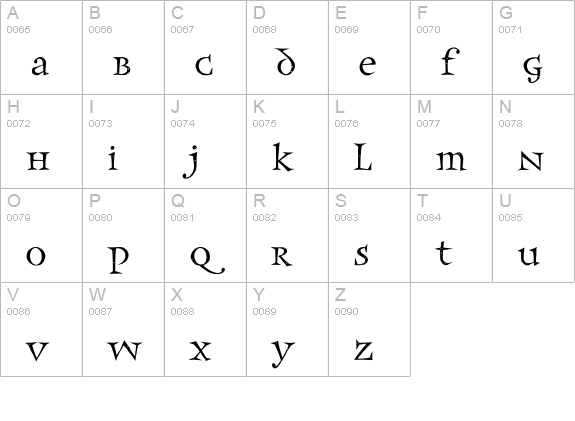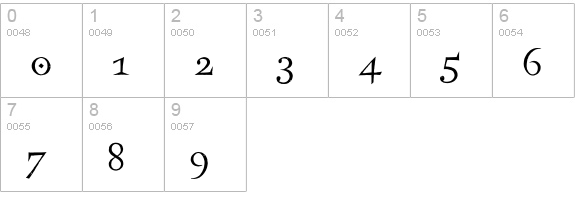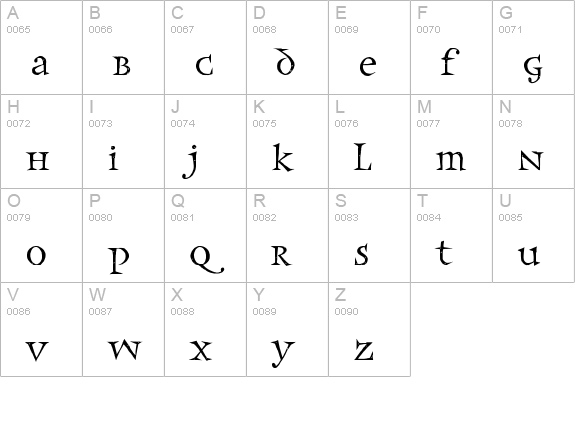
FrancesUncialPlain Font Details
FrancesUncialPlain font is a timeless and elegant typeface that exudes a sense of classical charm and sophistication. Its distinctive uncial style, characterized by rounded shapes and intricate details, makes it perfect for adding a touch of refinement to any design project. The fluid strokes and graceful curves of FrancesUncialPlain font create a harmonious and pleasing visual aesthetic that is sure to capture attention. What makes FrancesUncialPlain font even more appealing is that it is available for free download at FontsMarket.com. This means that you can easily access this exquisite typeface without any cost, making it a valuable addition to your font collection. Whether you are working on invitations, posters, or branding materials, FrancesUncialPlain font will elevate your designs with its classic beauty and artistic flair. Download this stunning font today and let its timeless elegance inspire your creative projects.